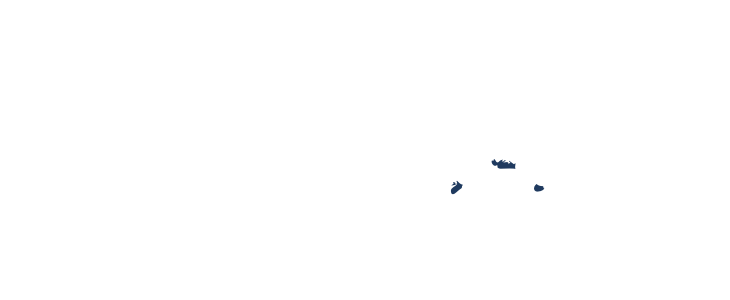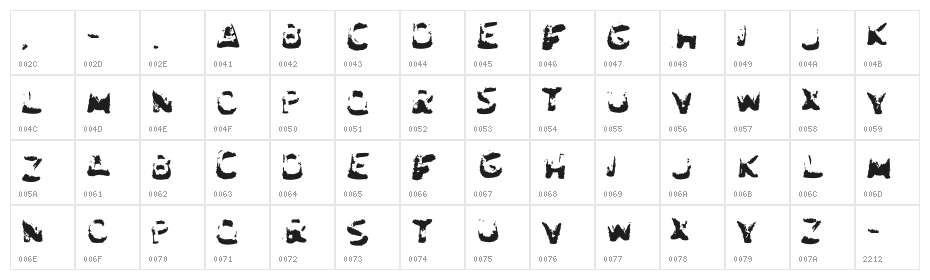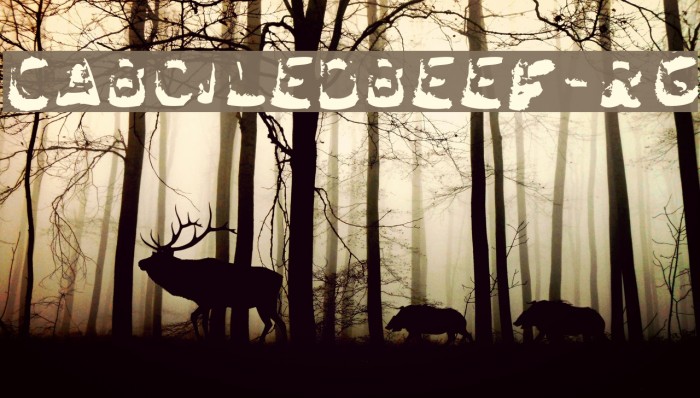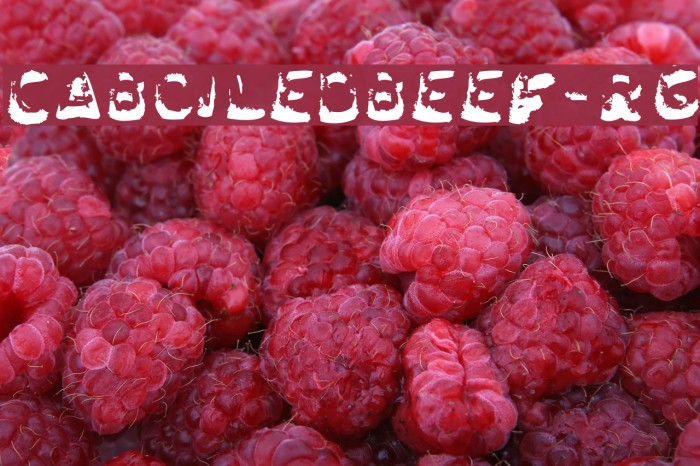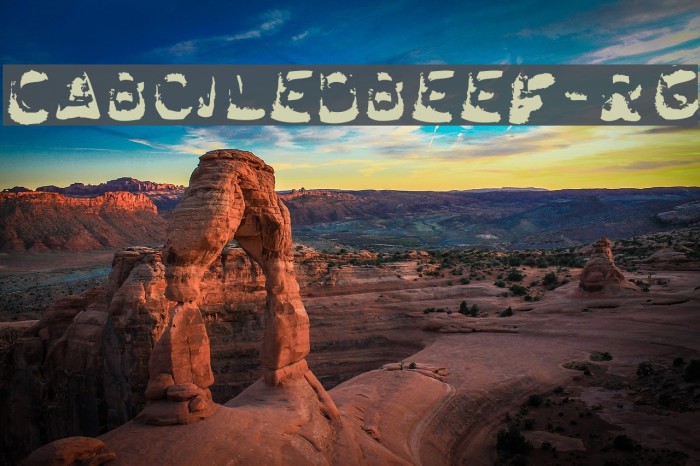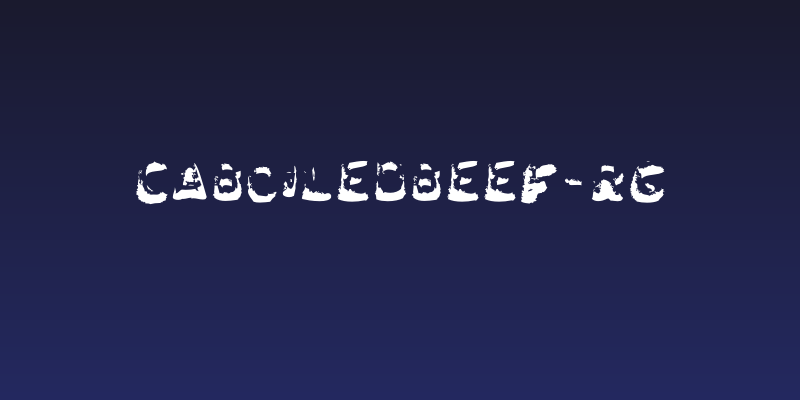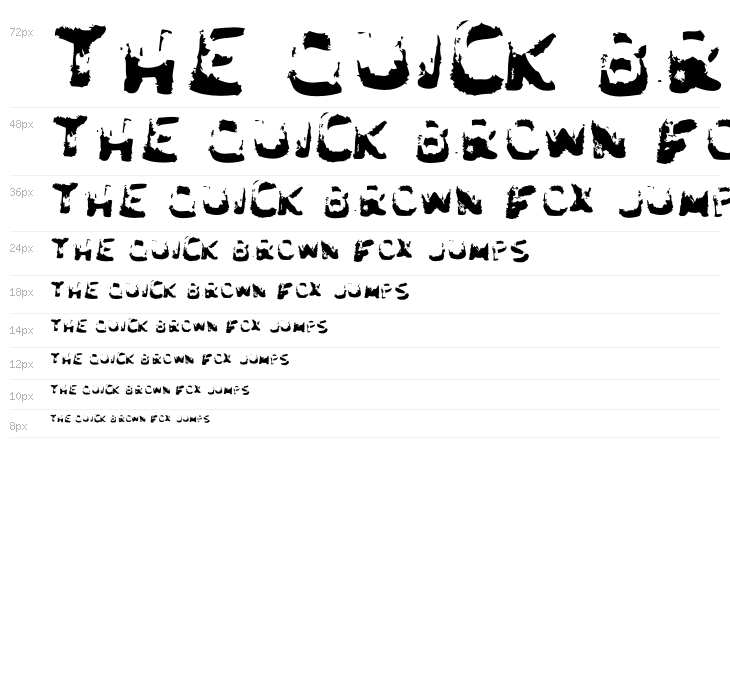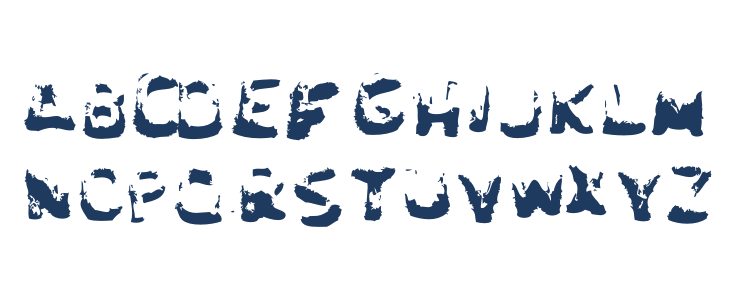
CABoiledBeef-Rg Font
CABoiledBeef-Rg Description
This font features a distressed, grunge style with a bold and rugged appearance. The characters are heavily textured, giving them a worn and weathered look. The uppercase letters are consistent in height, while the overall design maintains a sense of chaos and unpredictability. The rough edges and uneven strokes contribute to its unique aesthetic, making it stand out in any design. The font's boldness is complemented by its irregular texture, which adds depth and character. It's ideal for projects that require a raw, edgy feel, such as posters, album covers, or any creative work that seeks to convey a sense of rebellion or nonconformity.
| Overall Style | Grunge, Edgy |
| Proposed Projects | Perfect for edgy posters, album covers, rebellious branding, and creative designs needing a raw aesthetic. |